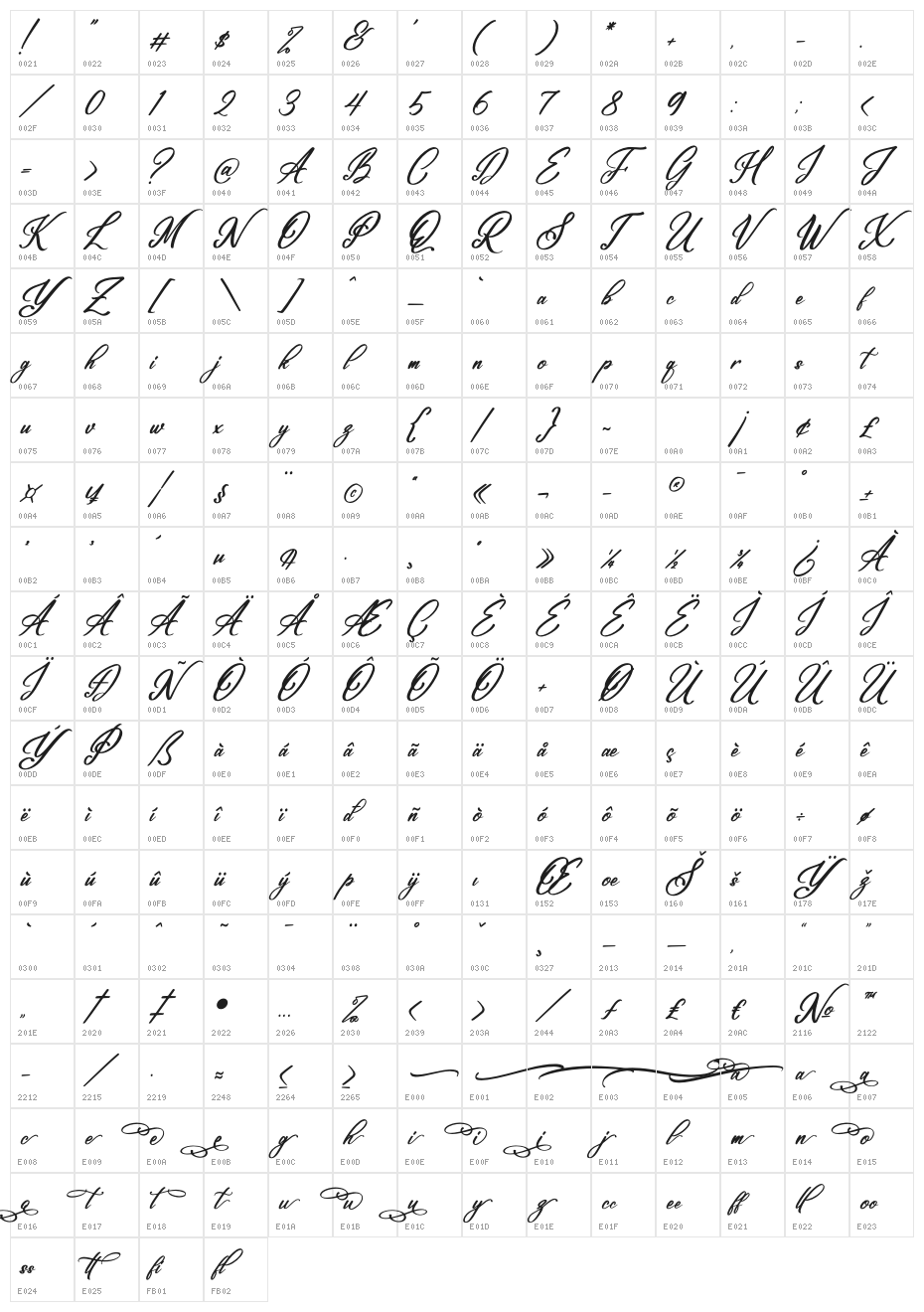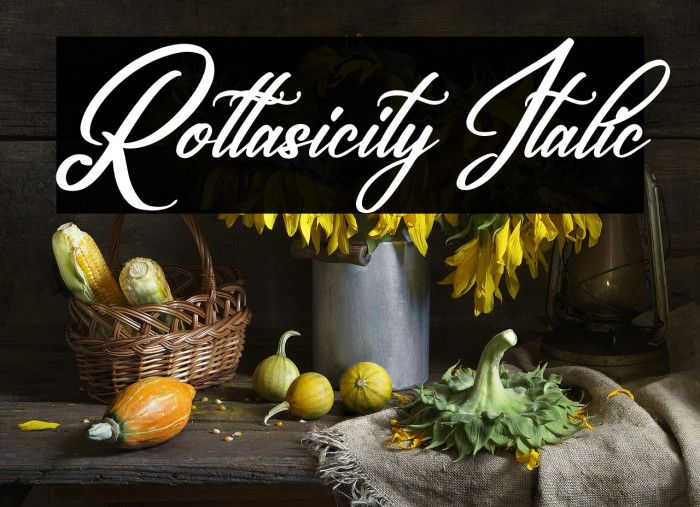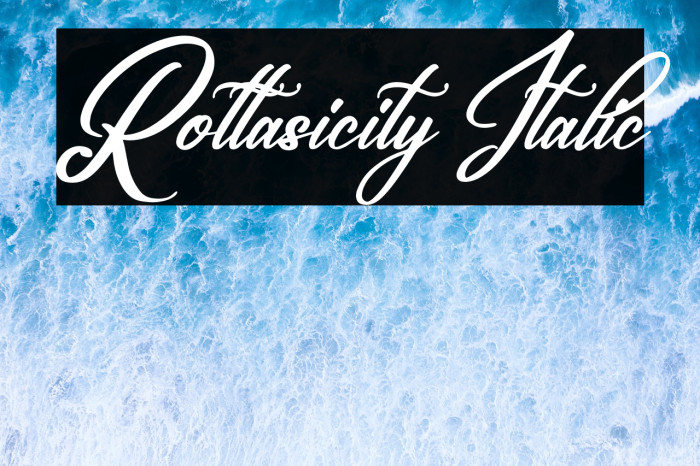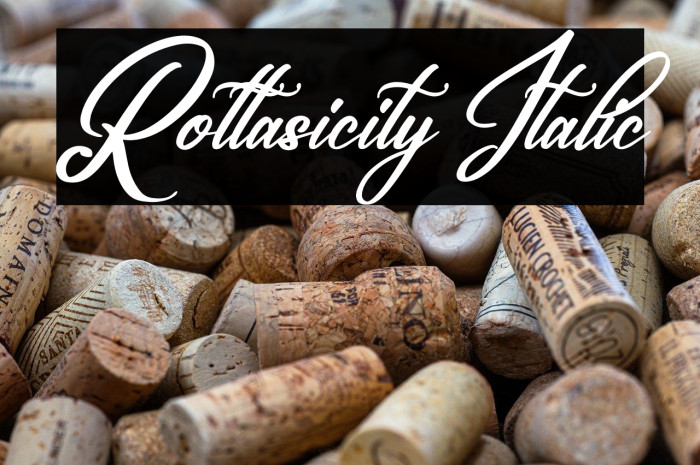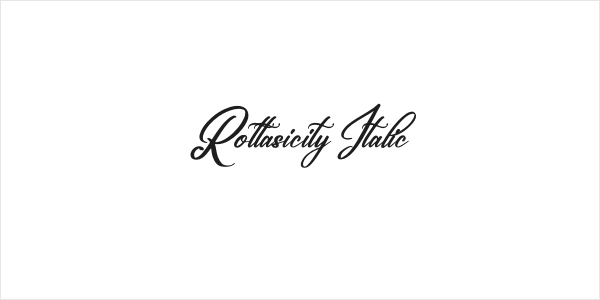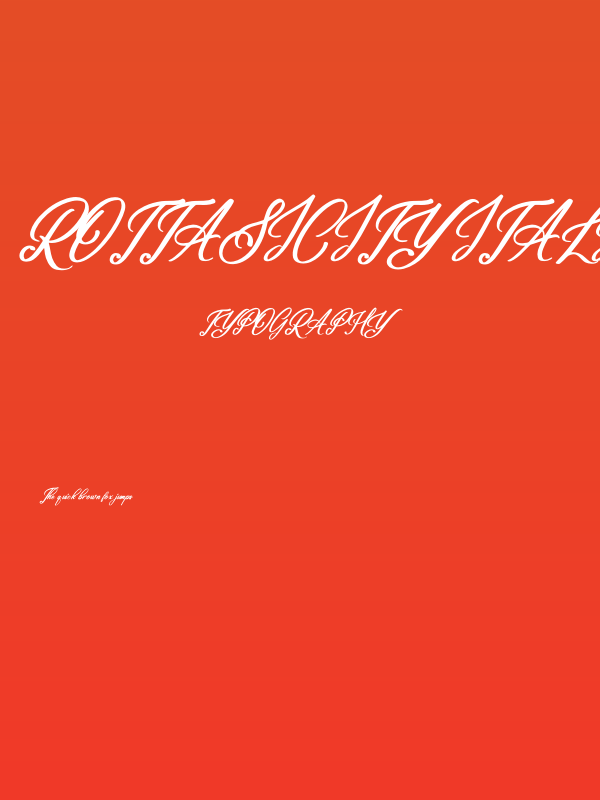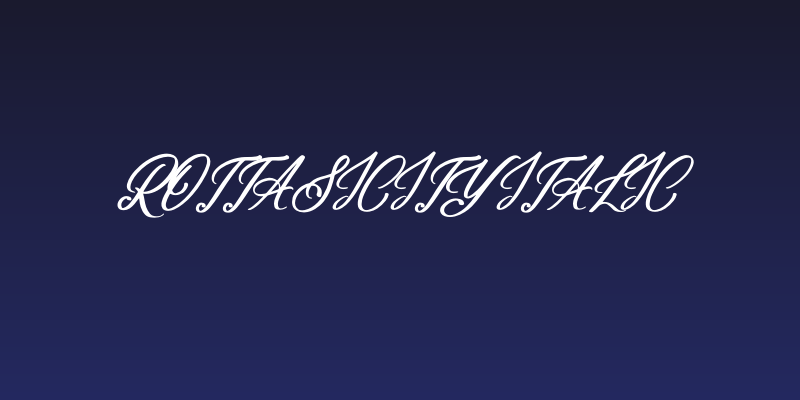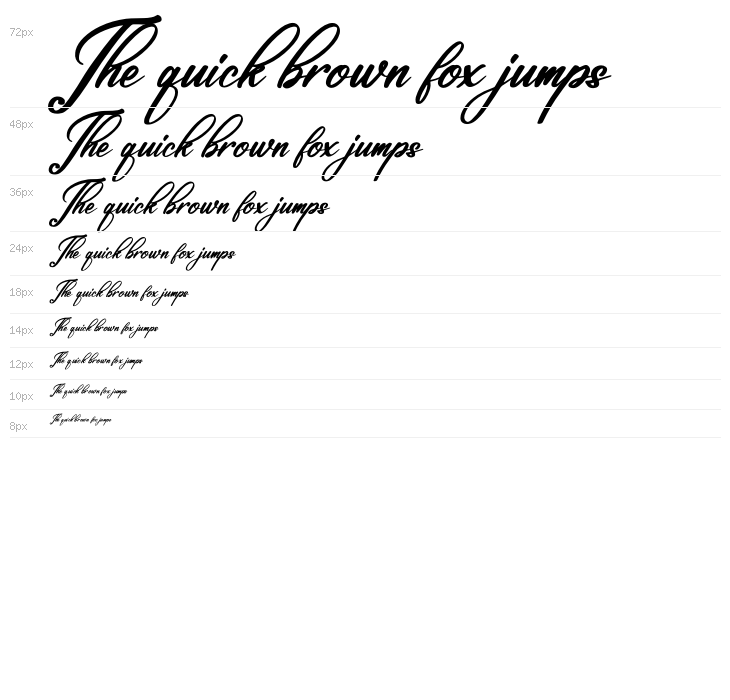
Rottasicity Italic Font
Rottasicity Italic Description
This font features an elegant, flowing script style with a distinct italic slant, giving it a sophisticated and dynamic appearance. The characters are intricately designed with smooth curves and loops, reminiscent of traditional calligraphy. The uppercase letters are bold and prominent, while the lowercase letters maintain a graceful continuity. The numerals and special characters are crafted to match the overall aesthetic, ensuring a cohesive look. This font is ideal for projects that require a touch of elegance and formality.
| Overall Style | Elegant, Calligraphic |
| Proposed Projects | Ideal for wedding invitations, elegant branding, luxury product packaging, and formal event programs. |